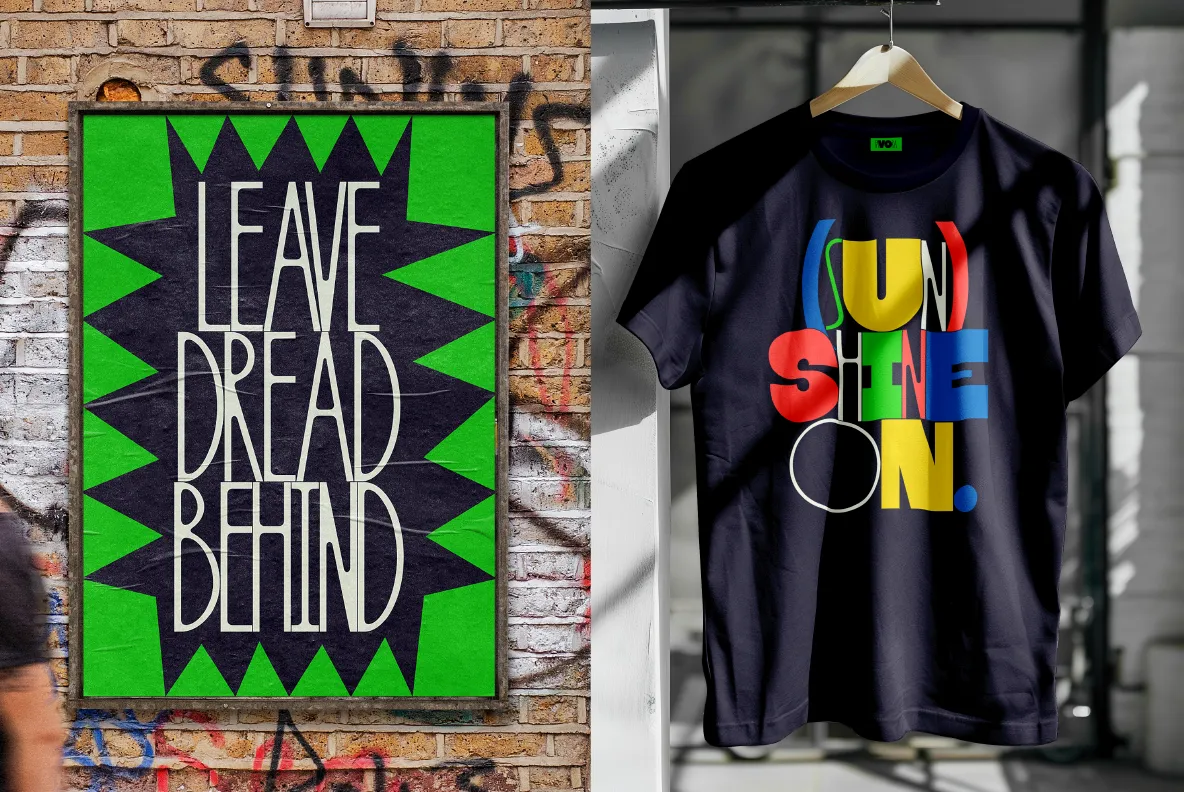
As the festive holiday season approaches, we just have time to share some of the best new typefaces for December. And boy, are they worth checking out.
This December, independent type foundries are pushing the boundaries of letterform design, offering a stunning array of typefaces that blend historical inspiration with contemporary innovation.
From playful storybook-inspired fonts to multilingual sans-serifs, this month's releases demonstrate type design's incredible versatility and creativity.
These typefaces aren't just about letters on a page; they are about storytelling, cultural connection, and visual expression. So whether you're seeking a font for branding, editorial design, or personal projects, they're well worth checking out. And if you need further inspiration, check out our roundup of the best fonts for November too.
1. Meraki
Famed New York designer Jessica Walsh only launched her new type foundry, Type of Feeling, back in August. But they've already released some superb fonts, and here's another great release to add to the collection.
Meraki was inspired by a Greek word that means doing something with creativity, love, and soul. It's been designed to be a versatile typeface that can be used as a warm, classic serif or as a more intricate, decorative option using alternate versions of the letters. It includes special uppercase letters that allow designers to embed more personality and rounded serifs into their work.
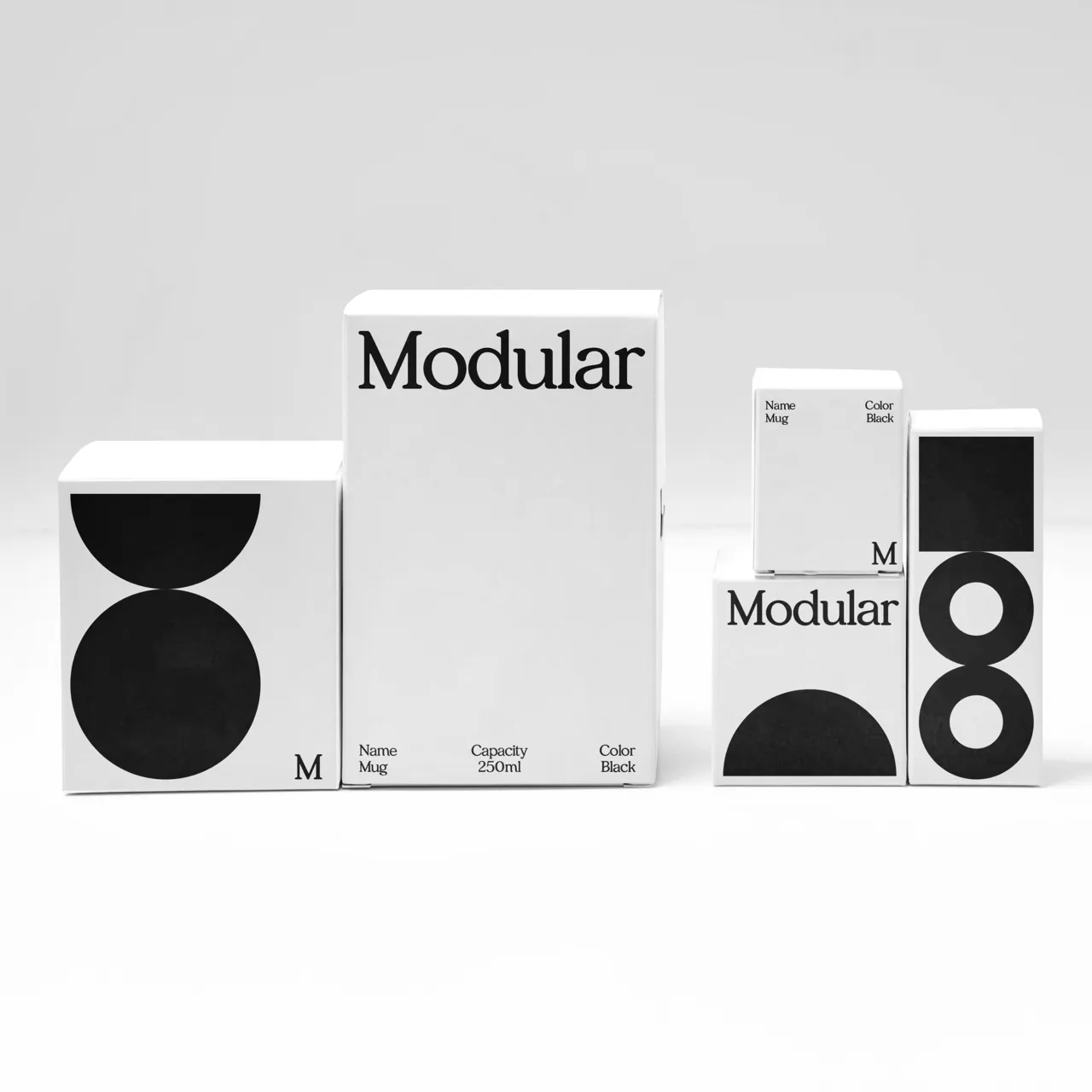
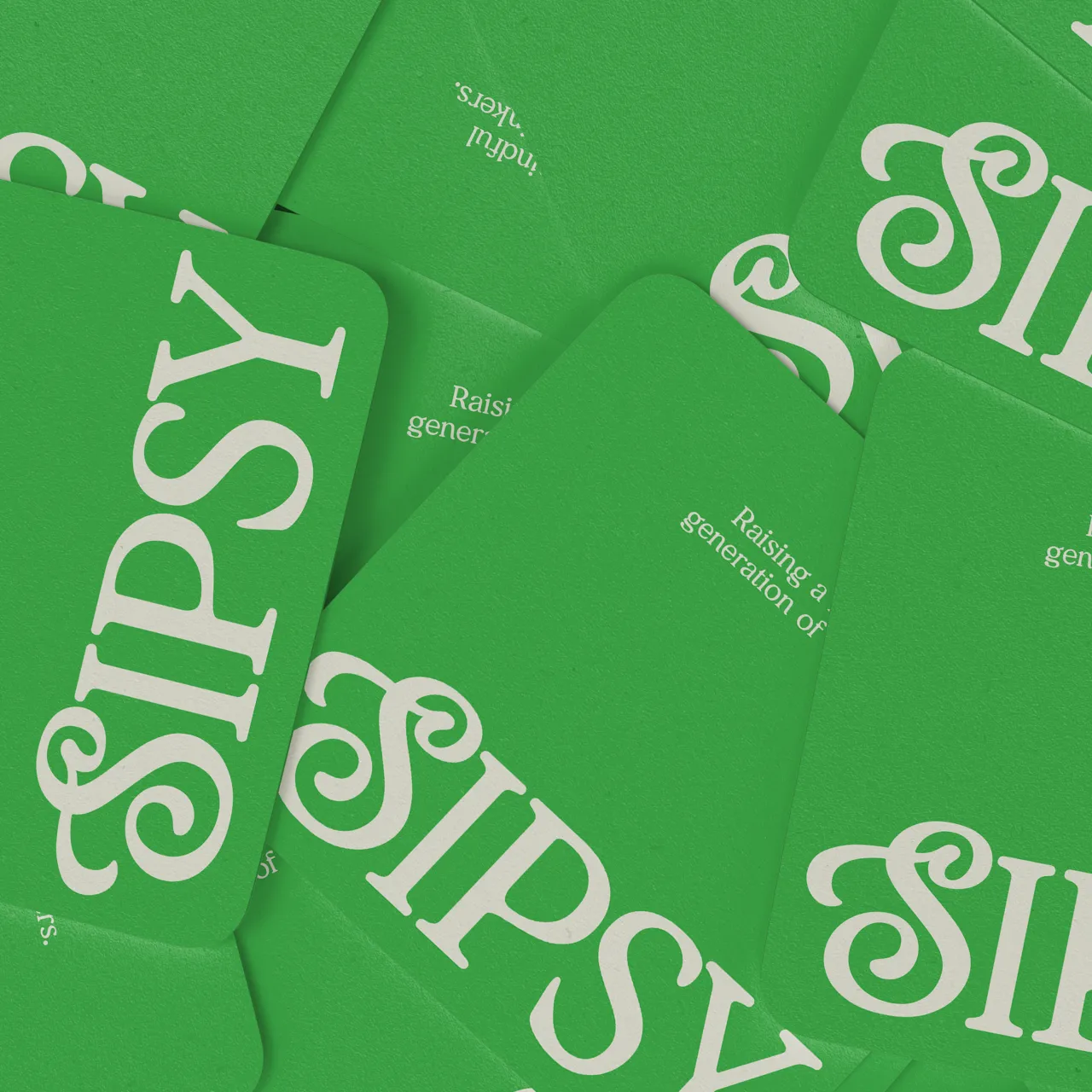
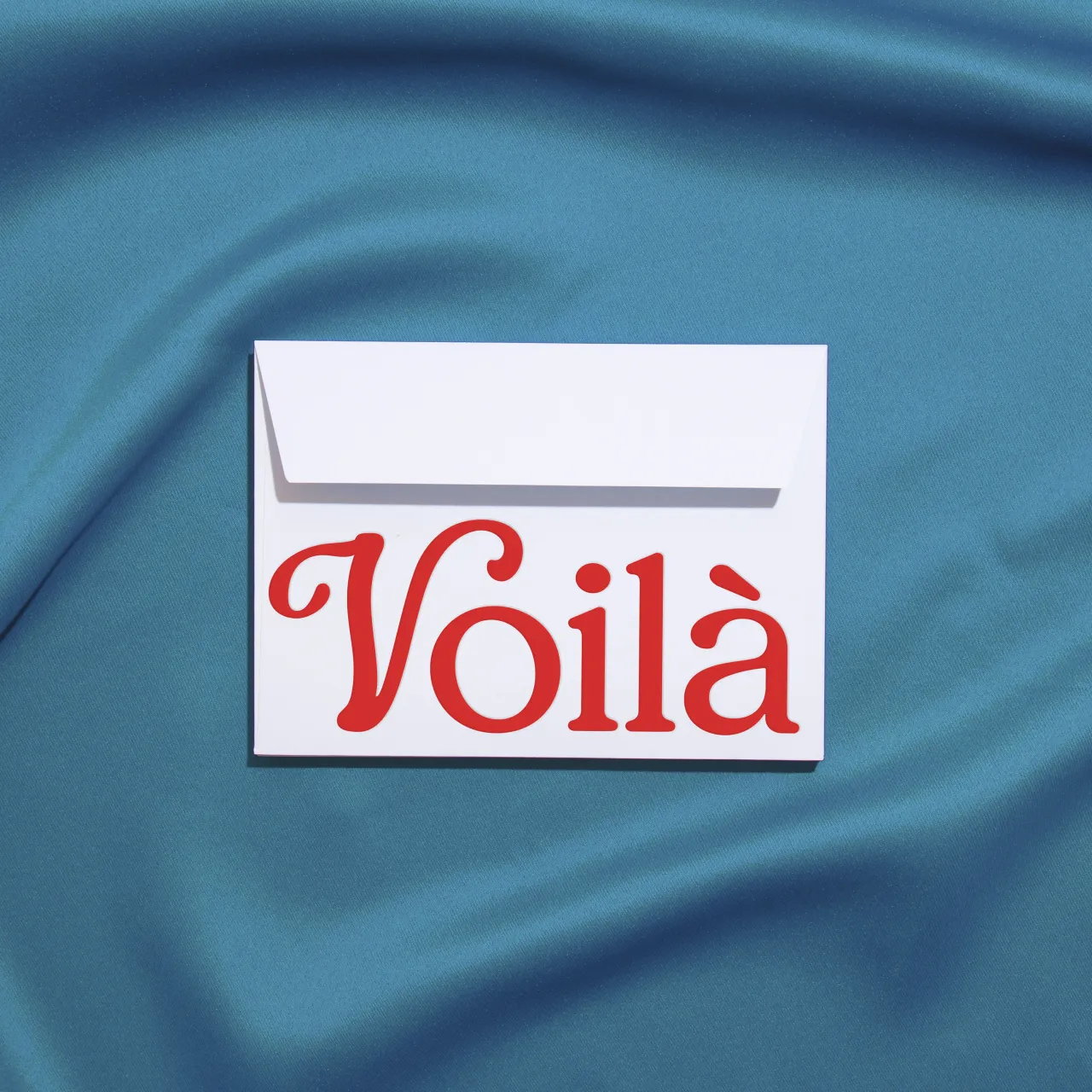
2. Otto by Dinamo
Developed by Amsterdam-based designers Sam de Groot and Laura Opsomer Mironov, Otto is a text typeface with a cheerful, subtly cartoonish presence. Inspired by the 17th-century type from Miklós Kis, the font reimagines Baroque serif traditions with a modern twist.
Available in four weights from Light to Bold, Otto features distinctive characters like impishly lopsided R, S, and & symbols. Its italics break from traditional flowery styles, offering a bubbly, understated design with a dynamic rhythm. As a delightful quirk, the typeface includes eight Dinamo pig illustrations, some drawn by the designers' children.
Accompanying the font is an actual storybook—also called Otto—written and designed by de Groot. Thus, this is perhaps the first typeface launch with its own narrative companion.
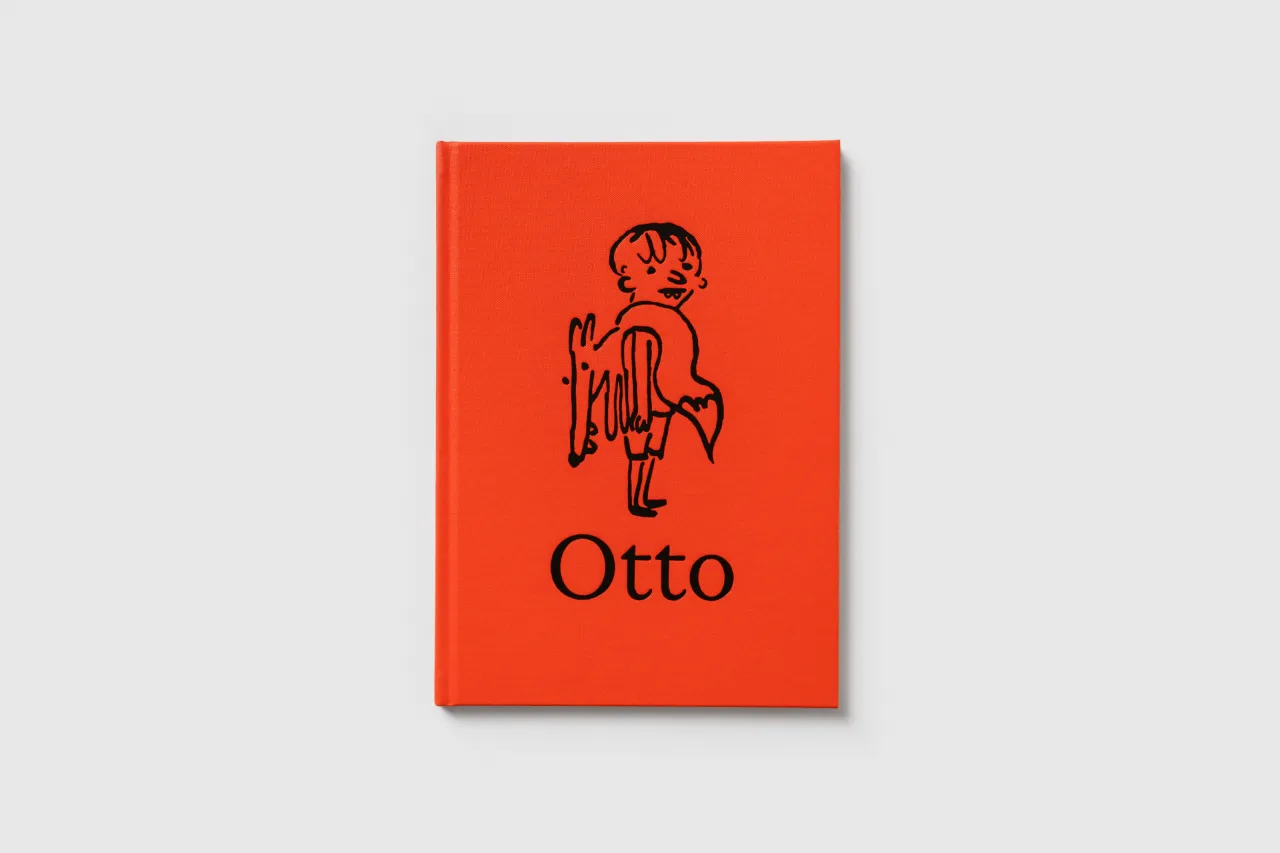
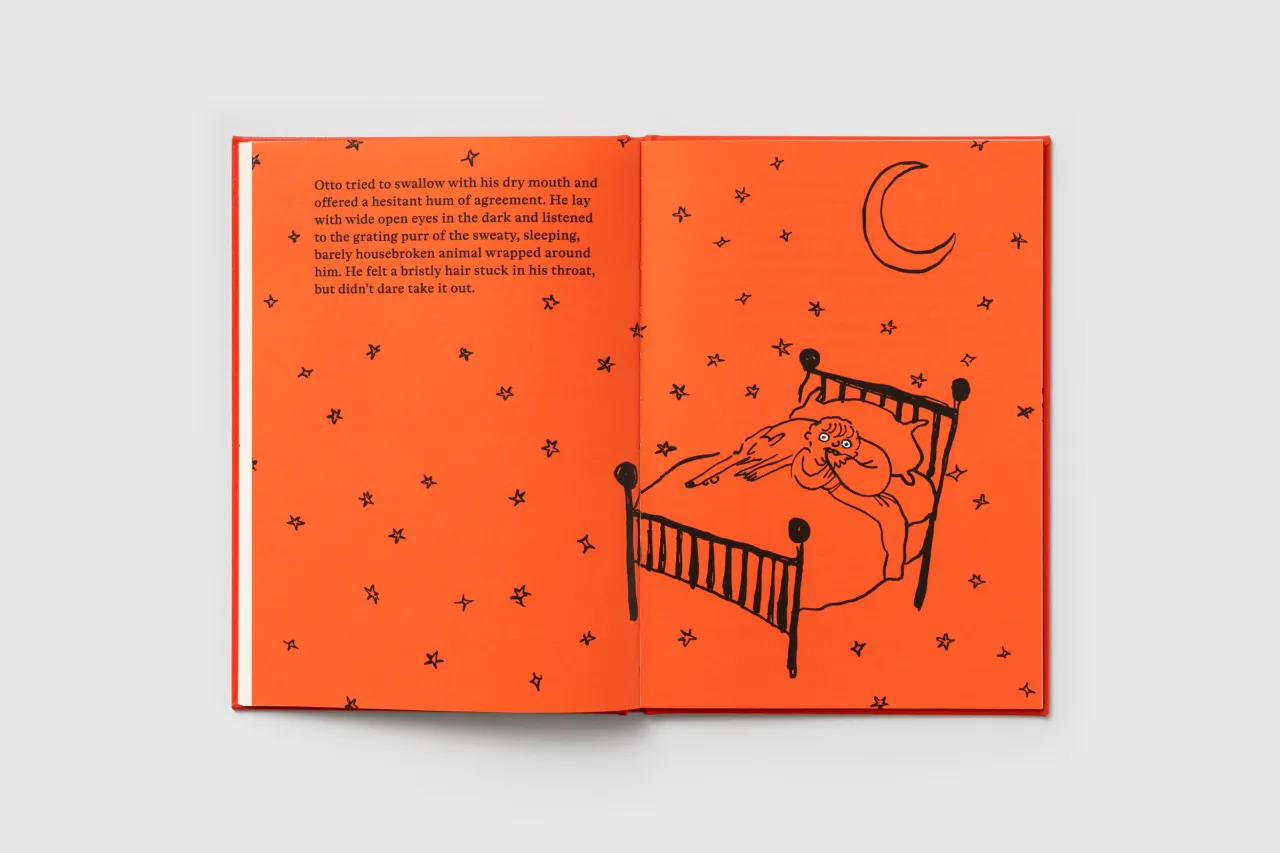
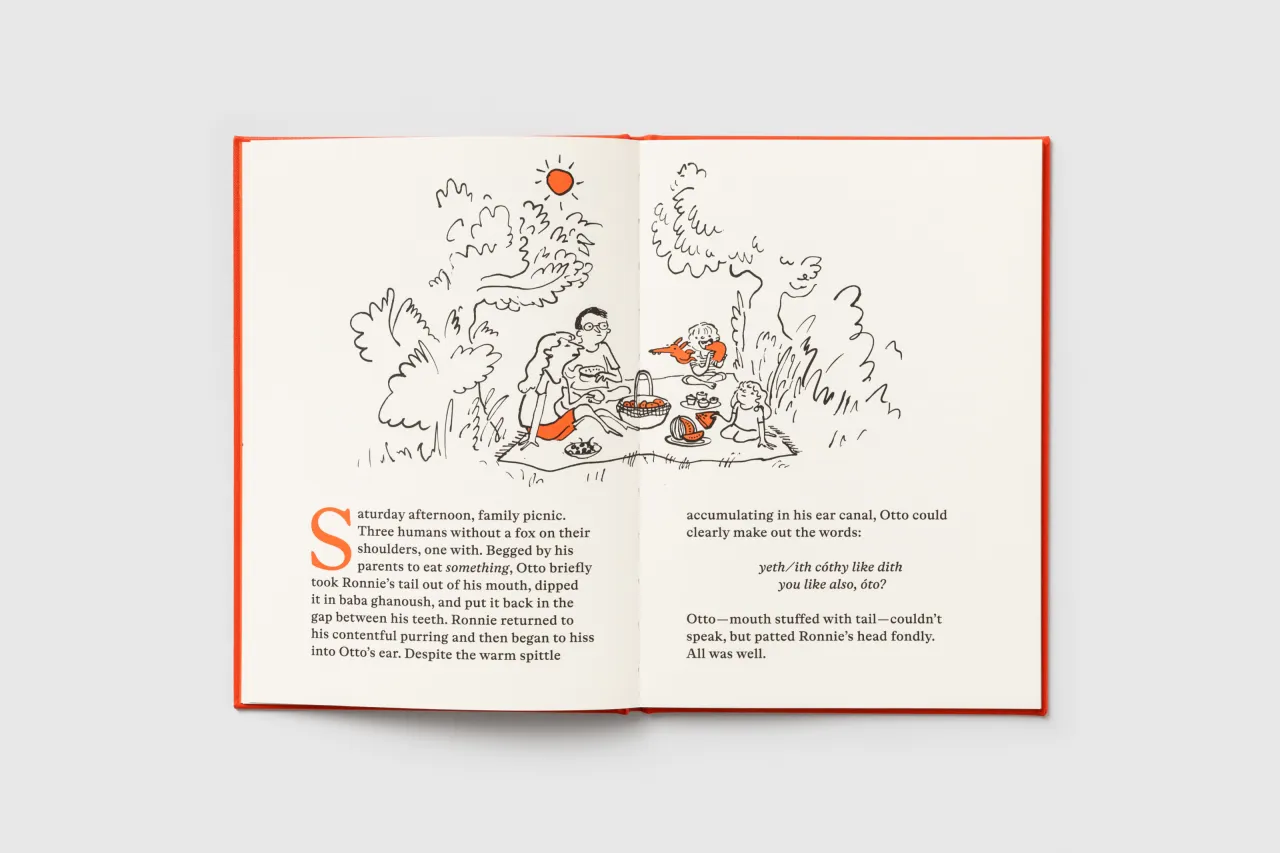
3. Sans Norm by MuirMcNeil
MuirMcNeil's Sans Norm is a meticulously crafted sans serif that emphasises vertical stroke rhythms. Drawing inspiration from utilitarian 20th-century geometric designs such as DIN 1451 and OCR-A, Sans Norm offers a mechanised, stripped-down aesthetic that prioritises functionality and versatility.
Constructed on a skeleton similar to MuirMcNeil Sans Sans, the typeface provides an economical and distinctive design. Available in upright and italic styles, each with 13 matching weights, Sans Norm is designed for extensive reconfiguration and adaptable use across various design contexts.
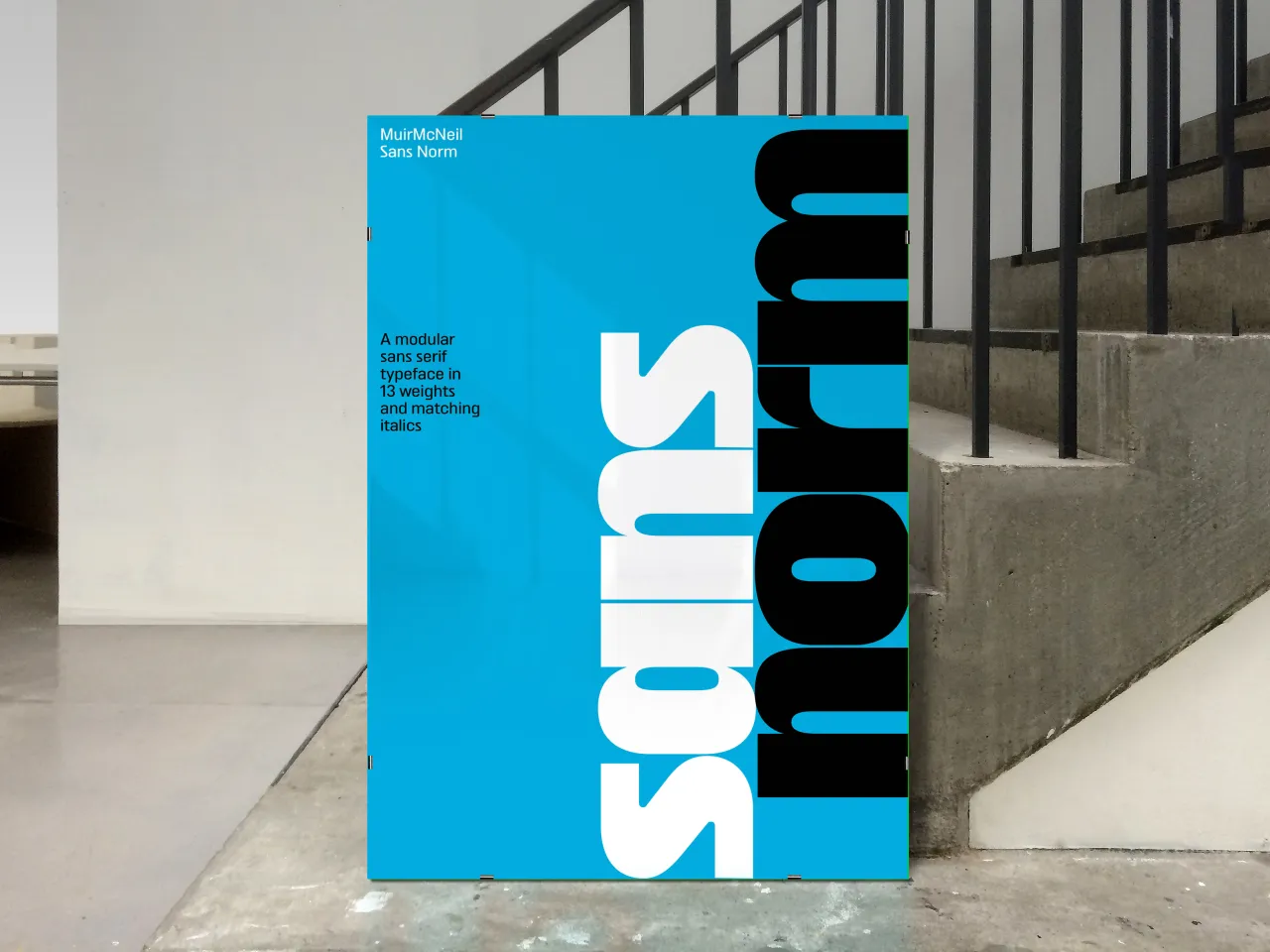
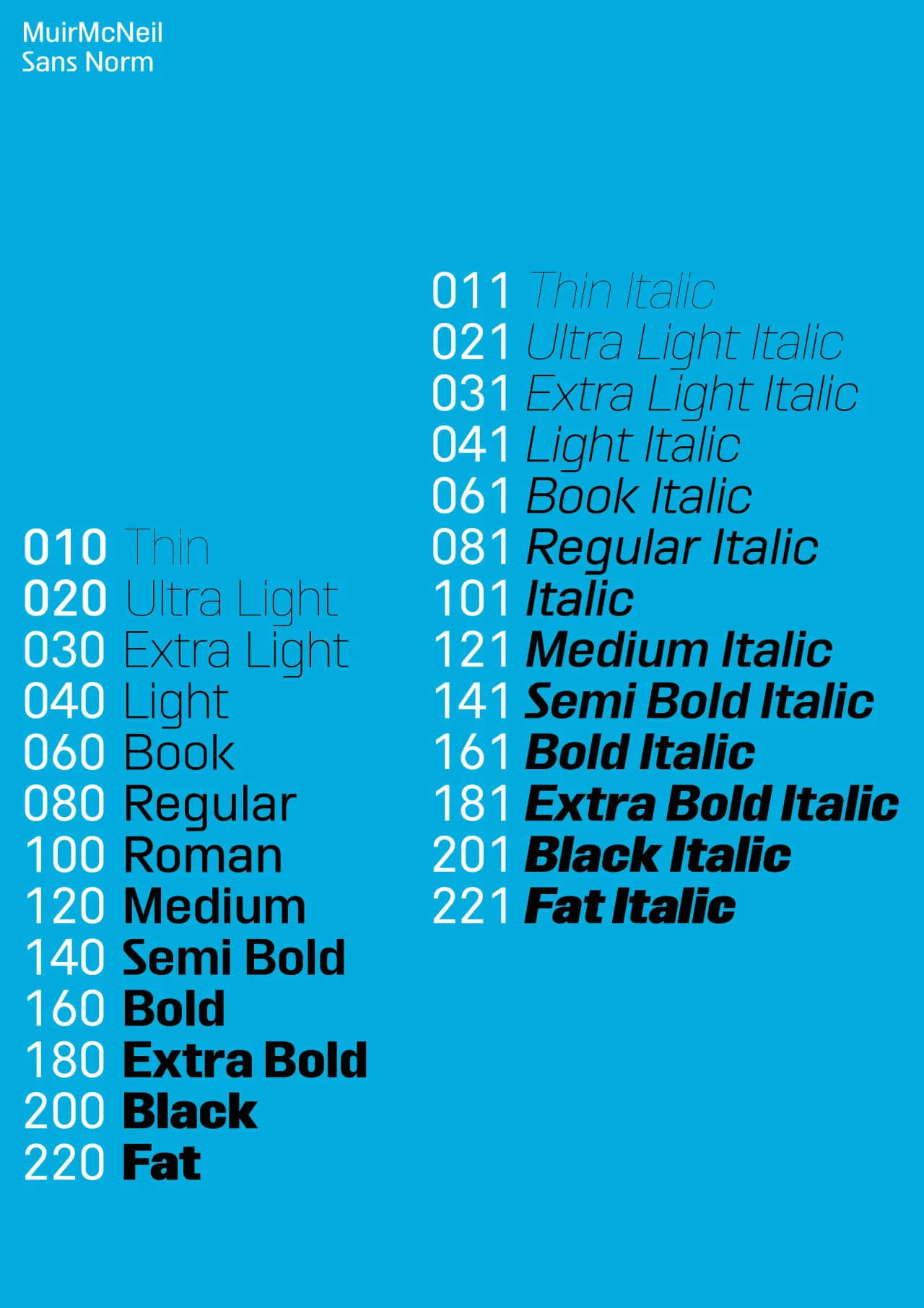
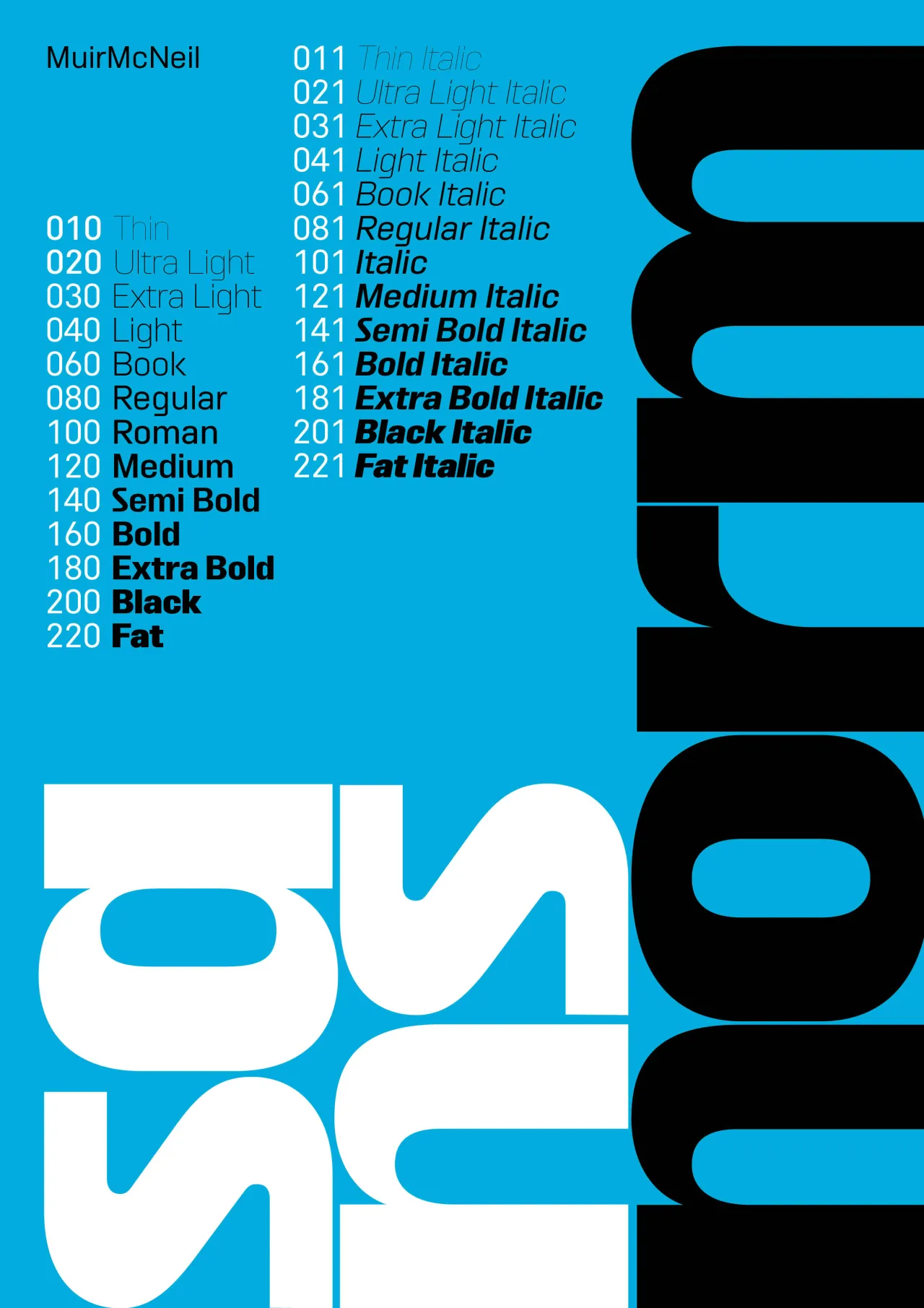
4. Nurom Next by The Northern Block
Ten years in the making, Nurom Next represents a significant evolution in multilingual typography. This contemporary sans-serif typeface goes beyond historical revival, offering a fresh personality that balances clean lines and modern aesthetics.
With extended language support, including Cyrillic, Greek, Hebrew, and Vietnamese, Nurom Next boasts over 1,000 characters and 20 weights. Its comprehensive OpenType features—including localised forms, scientific notation, and discretionary ligatures—make it an incredibly versatile font for global design projects.
5. Aconchego by Fabio Haag Type
Can a geometric font feel cosy? Fabio Haag Type's Aconchego answers with a resounding yes. This typeface explores the concept of comfort through letterforms, offering a unique blend of geometric precision and gentle expressiveness.
Designed to evoke pleasant sensations, Aconchego features flexible, smooth characters that bring a sense of warmth and intimacy to the design. It's a typeface that invites designers to infuse their projects with a touch of comfort and contemporary gentleness.
6. Airport by Lukas Schneider
Airport is a digital reinterpretation of Matthew Carter's 1961 alphabet, originally designed for London's Heathrow Terminal 3. Schneider's version expands on Carter's original concept, offering seven weights and optimised for contemporary use.
Supporting numerous Latin-based languages, Airport includes unique extras such as alternates, arrows and circled glyphs. An optional variable font with a weight axis and a special Airport X variant with a lower x-height provide designers with extra flexibility.
7. Favora by In-House International
Favora is a two-weight display typeface that embodies forward momentum and societal progress. Inspired by commercial signage and protest posters, the font channels transformative moments with a sense of optimistic possibility.
The redesign was no small feat: Estrada-Osmycki essentially redrew the entire typeface, adding sophisticated OpenType features like small caps and swashes. With optimisations for longer texts and enhanced versatility, Wulkan has evolved from a striking display font to a comprehensive typographic workhorse that maintains its original expressive character while becoming dramatically more functional. Meanwhile, the legacy version of Wulkan Display can be found here.